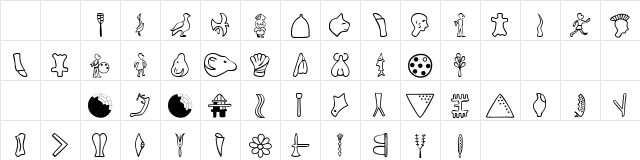
Complete 101! Phaistos Regular glyph index. Displaying only characters natively supported by 101! Phaistos Regular font.
101! Phaistos is a composed and adaptable typeface that performs quietly and consistently across a wide range of design contexts.